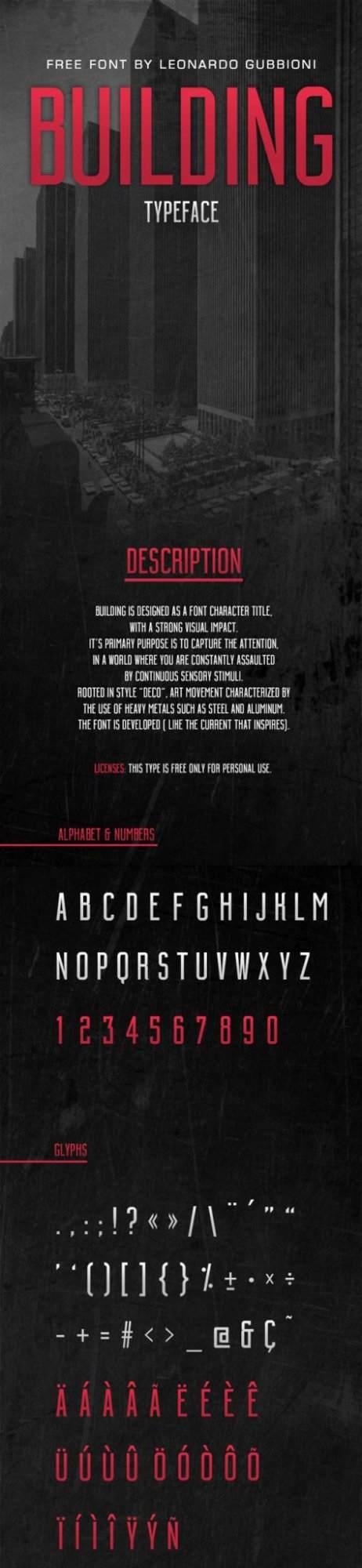
Building Font
Introducing BUILDING Typeface. Designed by Leonardo Gubbioni, Building is a typographical title, with a strong visual impact. Its main purpose is to gain attention in a world where you are constantly assaulted by continuous sensory stimuli.
Building is designed as a font character title, with a stong visual impact. It’s primary purpose is to capture the attention. Typeface designed during the course of “Fontlab / Type Design”. Free font by Leonardo Gubbioni